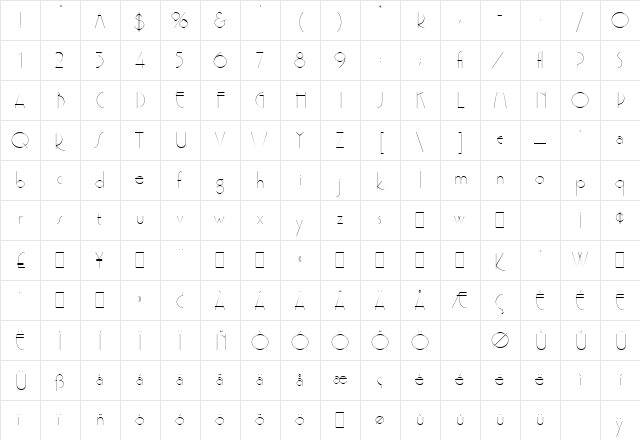
Premier Lightline LET Plain
Design Context for Premier Lightline LET Typeface
Premier Lightline LET offers clean, dependable letterforms without strong stylistic allegiance, making it a practical choice for designers who need flexibility. The delicate stroke weight brings airiness and refinement to layouts.